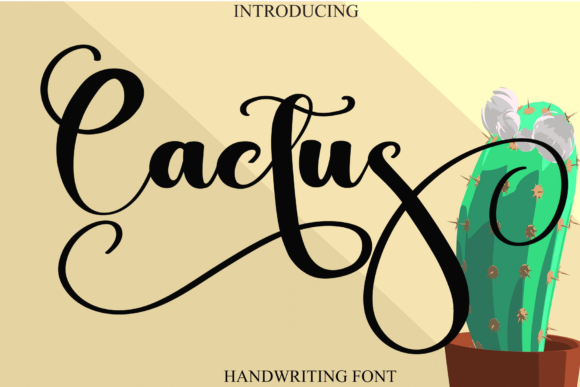
The Sweet Charm of Cactus Font: A Designer’s Delight
I’ll never forget the time I was working on a wedding invitation project, and my client asked for a font that was “sweet, romantic, and beautiful.” I scoured the internet, trying out font after font, but nothing seemed quite right. That was until I stumbled upon Cactus Font. ✨ This lovely script font has been a game-changer for me, and I’m excited to share its charm with you.
So, what makes Cactus Font so special? Let’s dive into the good stuff and a few quirks I’ve discovered.
- ✨ Beautiful, flowing curves in each letter that exude elegance and sophistication.
- ✅ PUA (Private Use Area) coded, making it easy to access all the glyphs and swashes.
- 💕 A sweet, romantic feel that’s perfect for wedding invitations, Valentine’s Day cards, and other special occasions.
- 🎨 Highly versatile and can be used for a variety of design projects, from branding to packaging.
- 🤔 Some users may find the font a bit too ornate or over-the-top for certain projects.
- ⚠️ As with any script font, it may not be the best choice for body text or long blocks of text.
The Story Behind Cactus Font
Cactus Font was designed with love and care by a talented font designer who wanted to create a font that would capture the essence of the American Southwest. Inspired by the majestic cactus plant, this font is perfect for designers who want to add a touch of warmth and personality to their projects.
Q: What is PUA coding, and how does it benefit me?
A: PUA (Private Use Area) coding allows font designers to include additional glyphs and characters that aren’t part of the standard Unicode character set. This means that Cactus Font comes with a range of extra swashes and glyphs that you can use to customize your text and make it more beautiful.
Q: Is Cactus Font suitable for body text?
A: While Cactus Font is a beautiful font, it’s not ideal for body text or long blocks of text. Its ornate nature makes it better suited for headlines, titles, and short paragraphs.